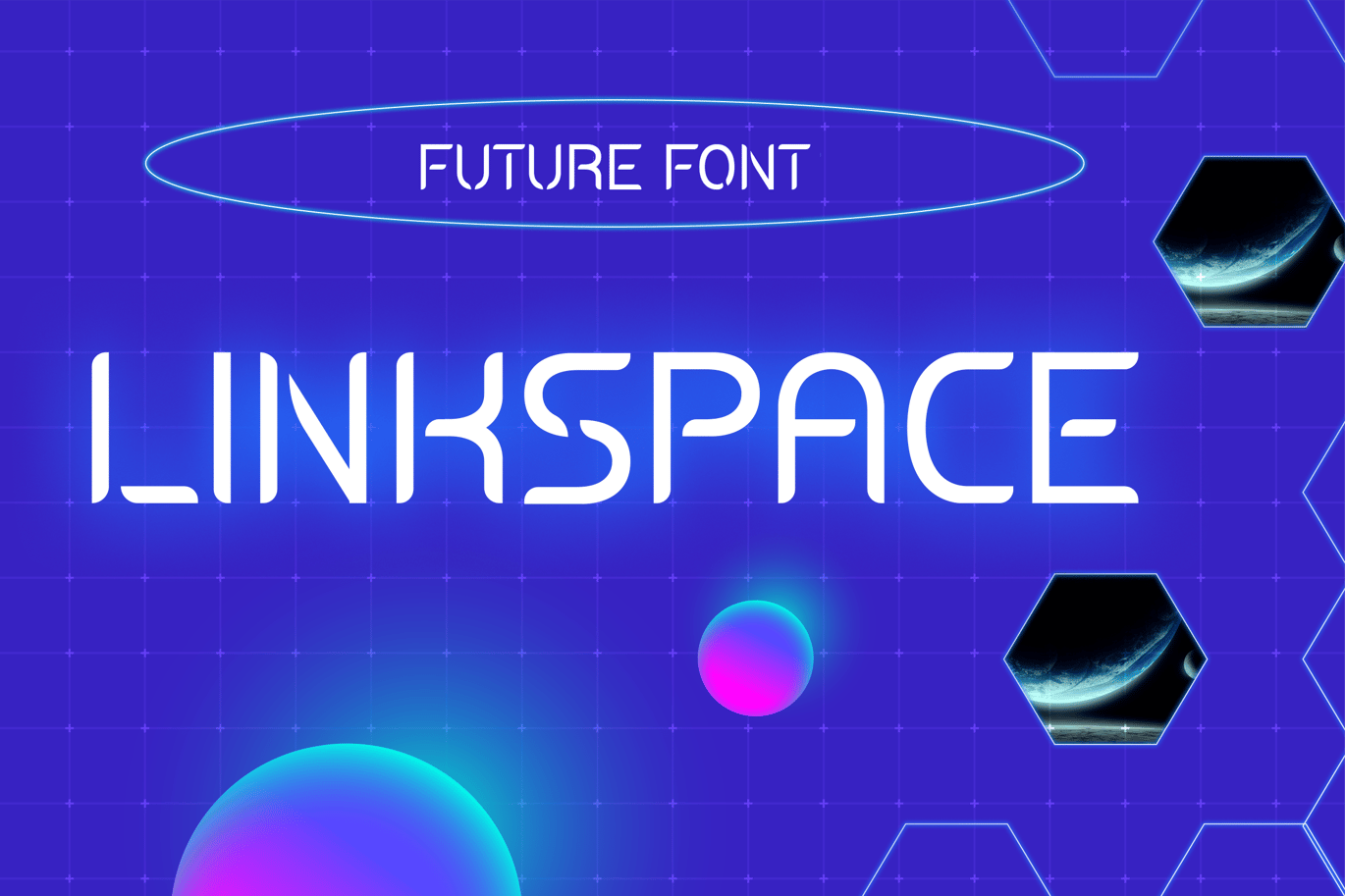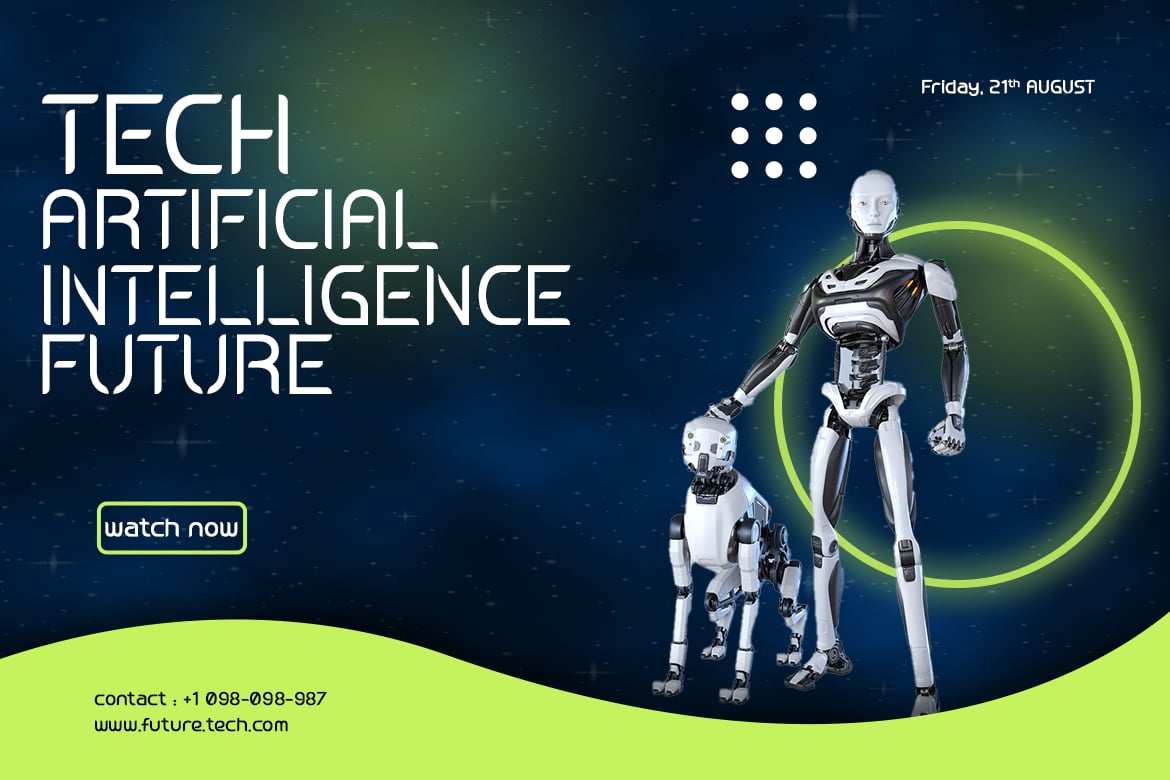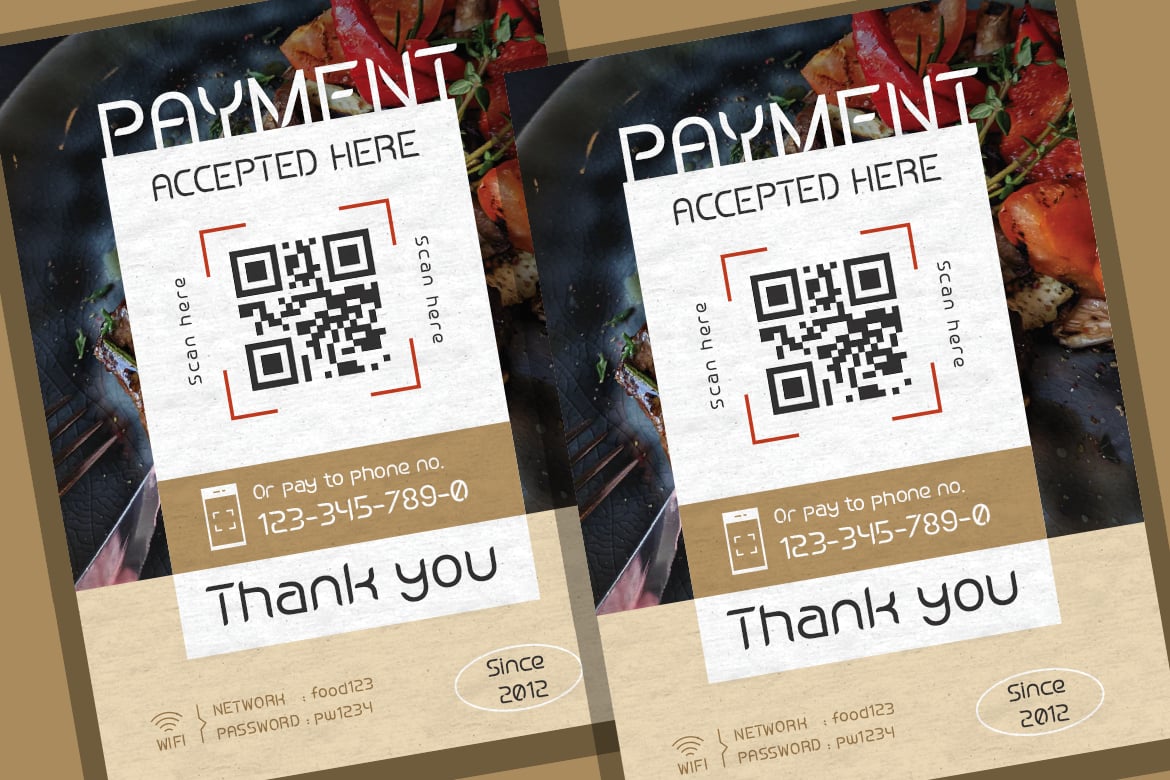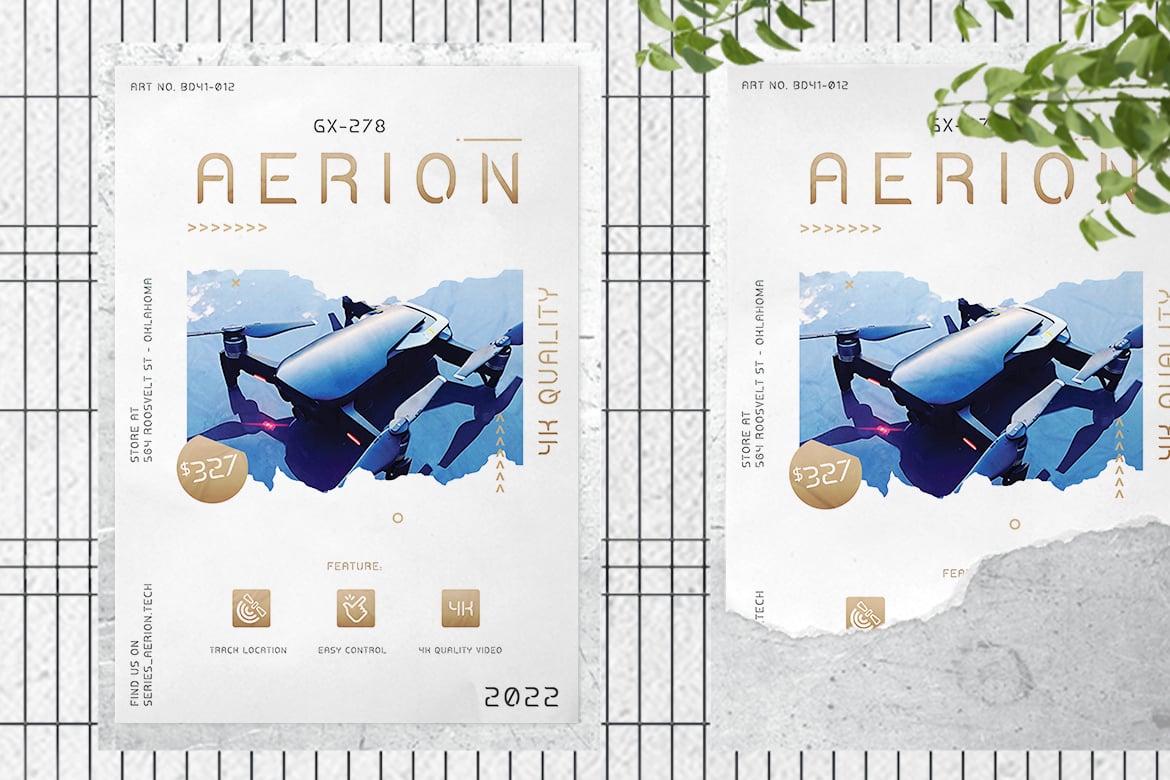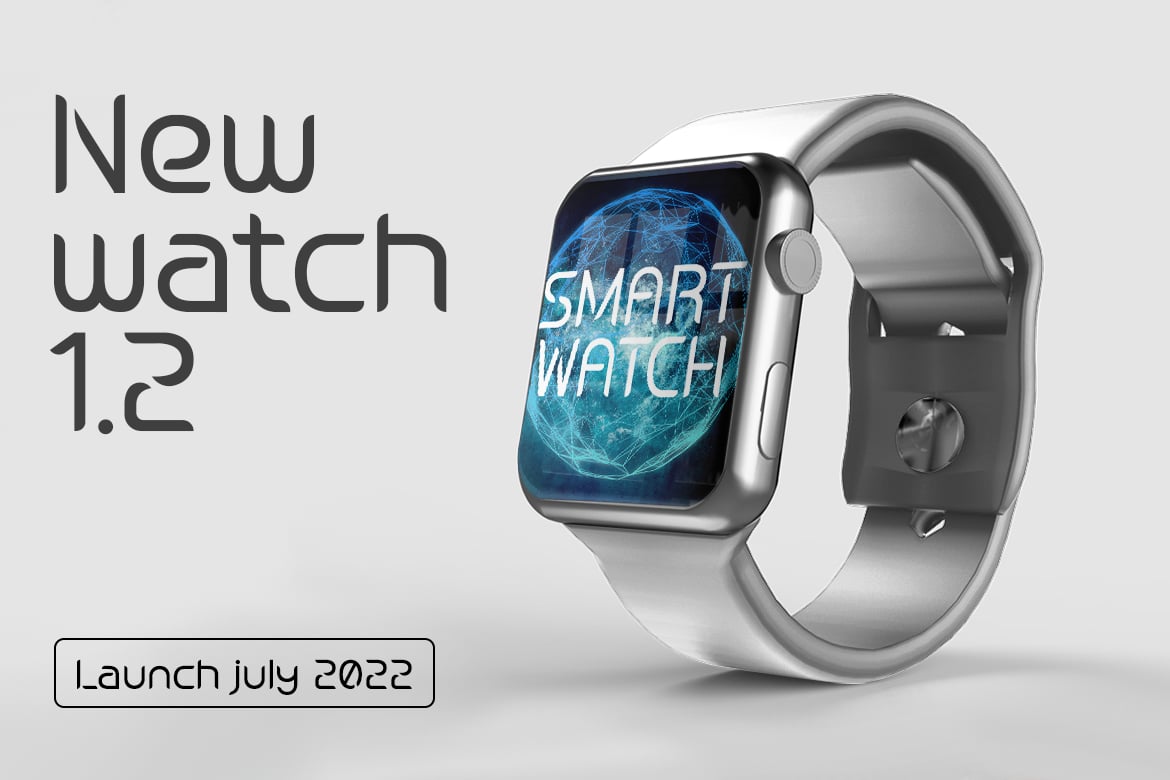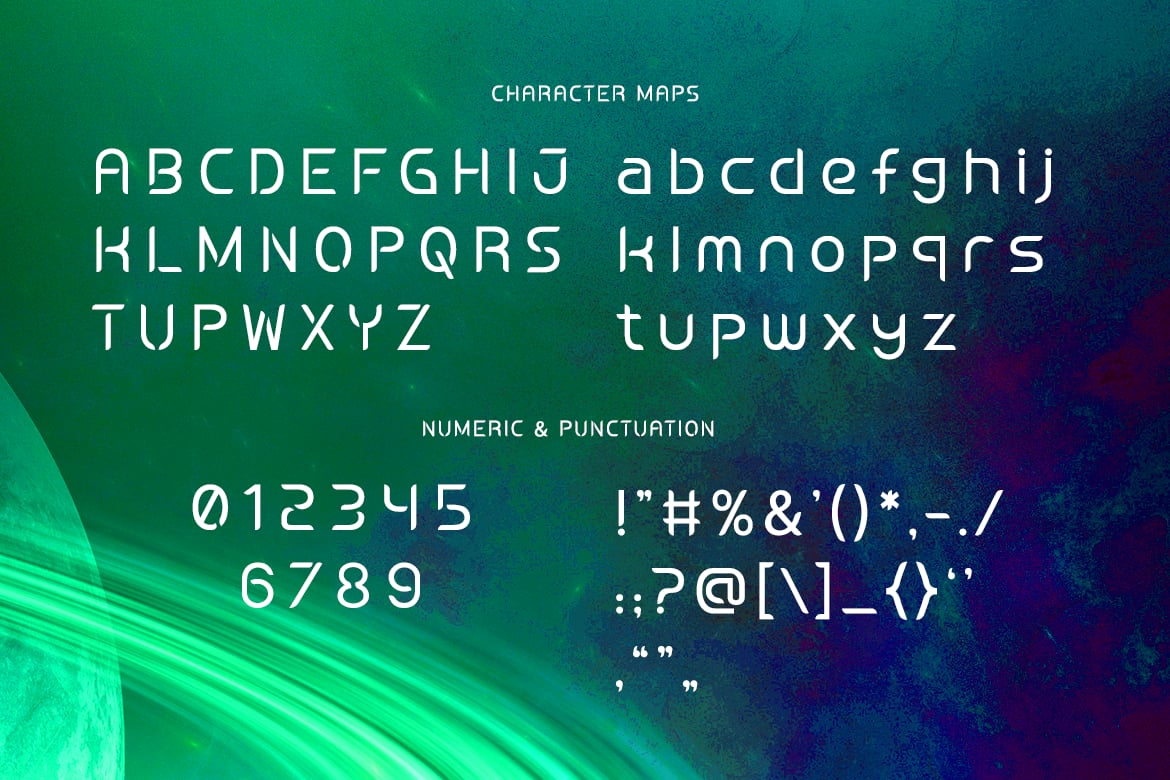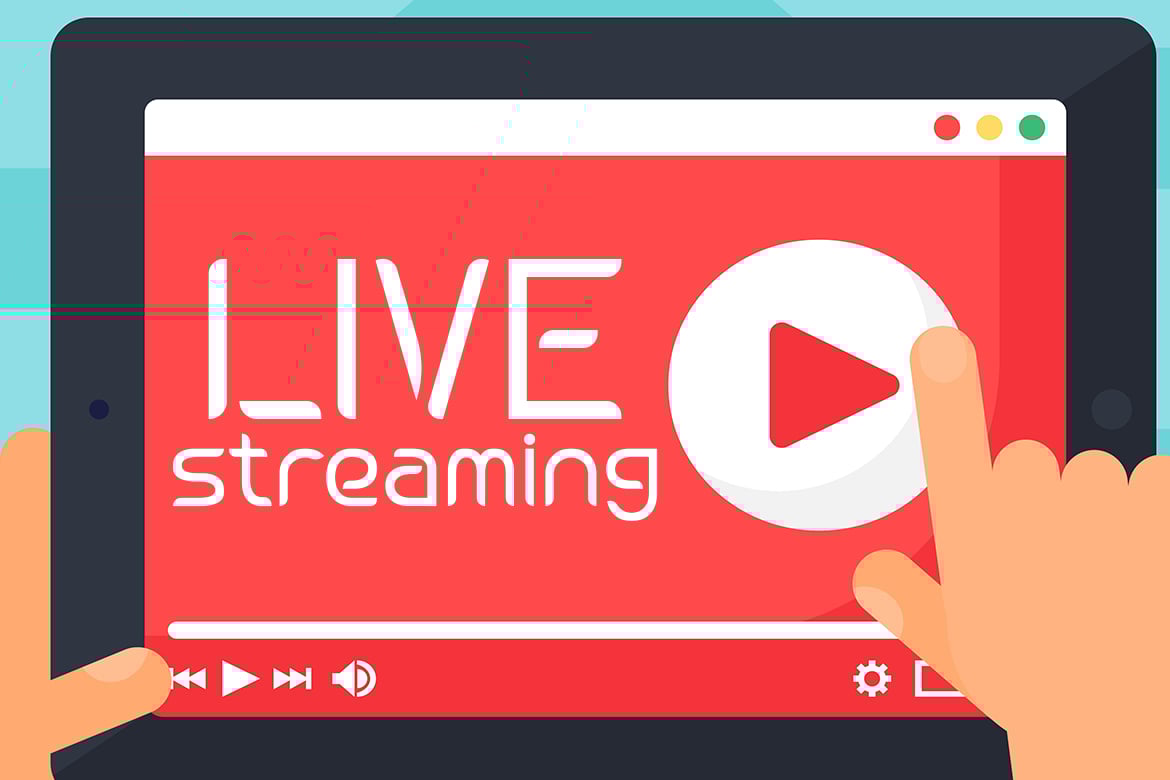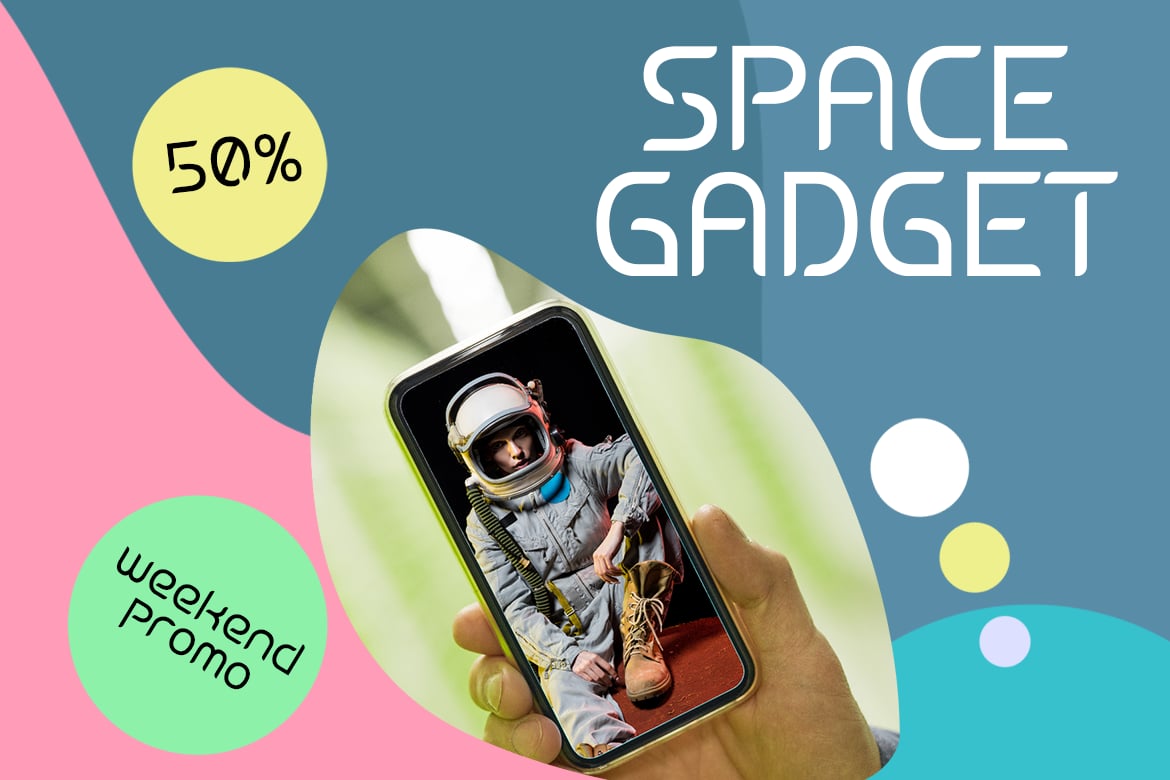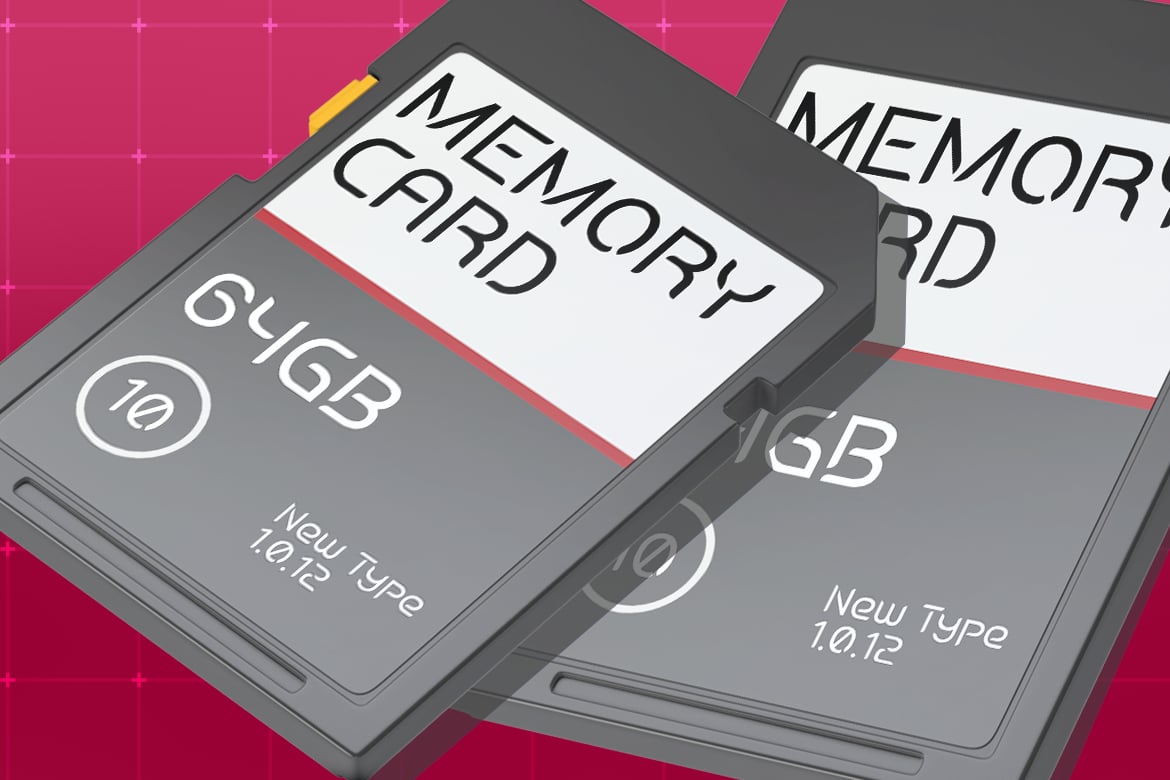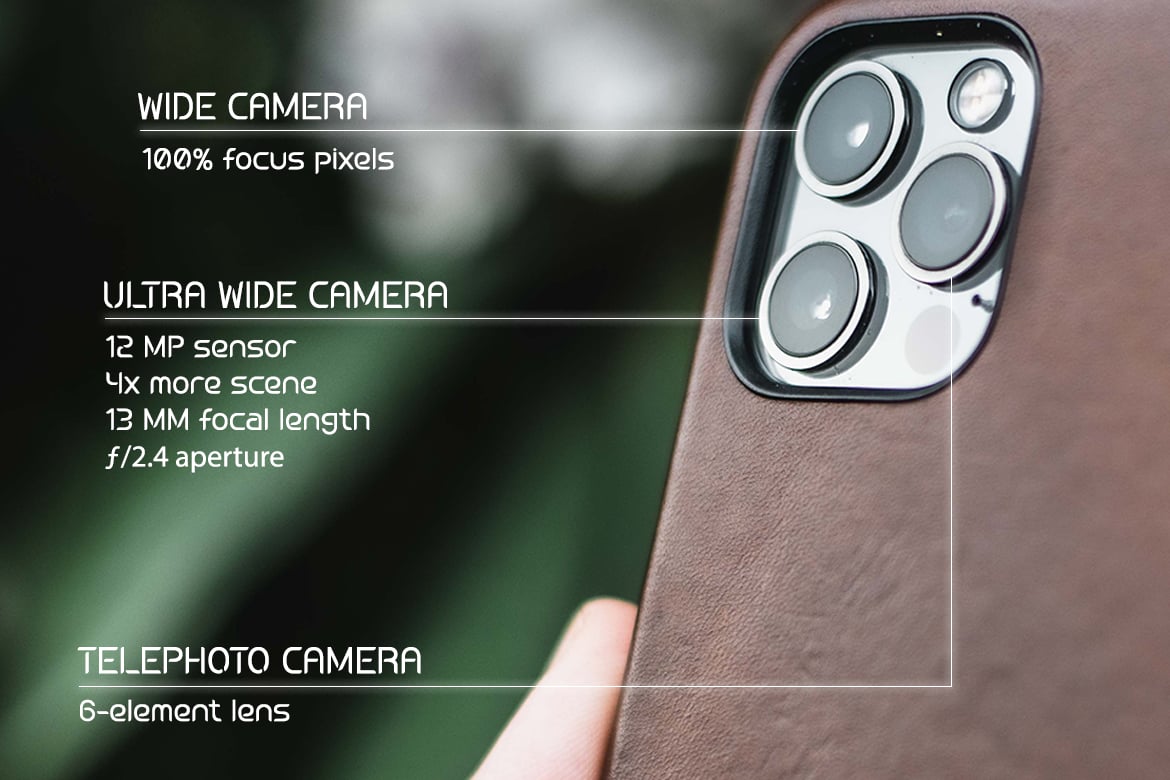
Linkspace – Futuristic Digital Font
As a font designer, I present to you the futuristic Linkspace font. Its techno style, sci-fi vibe, and modern look are perfect for space-themed games, technology events, and more. The font’s gigabyte and processor-inspired design gives it a digital edge ideal for the digital age. Use it for posters, YouTube covers, social media page covers, and more to make your designs stand out.
In a world where technology is constantly evolving, the Linkspace font is a beacon of innovation. Its futuristic design captures what it means to be at the cutting edge of typography. With its space-inspired elements and digital edge, Linkspace is perfect for designs that demand attention. Whether you’re creating posters for a technology event or YouTube covers for a gaming channel, Linkspace is the font that will make your designs truly stand out. So why wait? Discover the future of typography with Linkspace today.